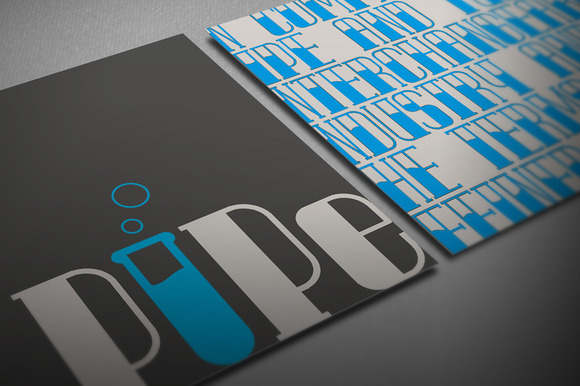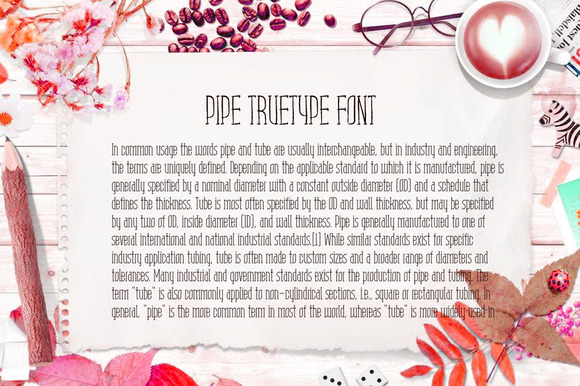
Pipe TrueType Font
The Pipe font from pipe shape to produce a set of font, it is elegant, style and diverse, different, suitable for all kinds of advertising, news, logo etc.